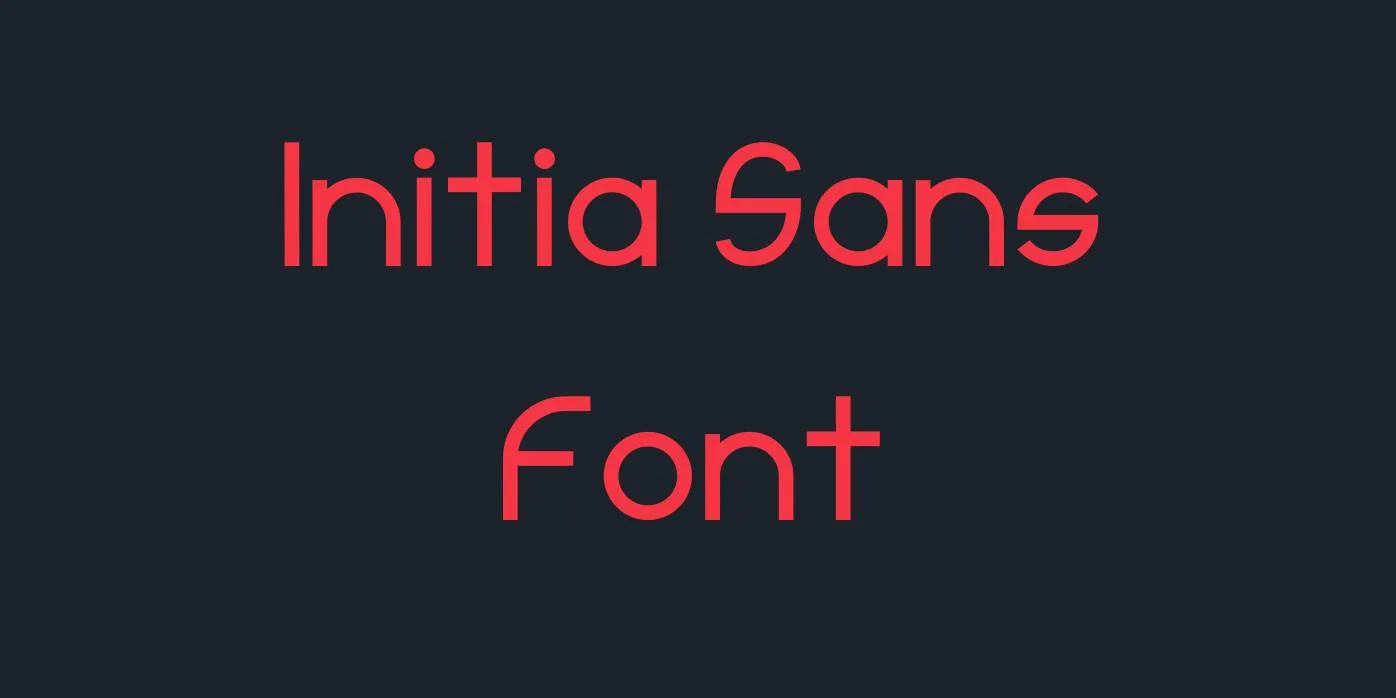
Initia Sans Font
Initia Sans Font is a stunning and fantastic font. This texture is a sans serif type of font. Fakhruddin Kagzi is the creator of this fantastic font. The characters of this typeface are classic and fantastic with high readability. There are 94 stunning glyphs for this typeface.
This font contains only one regular style. The typeface that is stunning for pairing with this texture is the white rabbit font. This typeface is awesome for pairing with this texture. You can also pair the hallelujah font with this fantastic font.